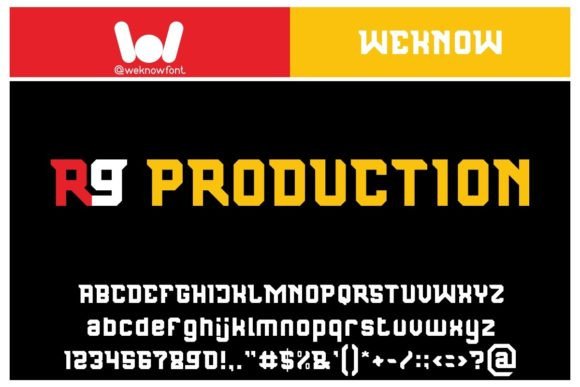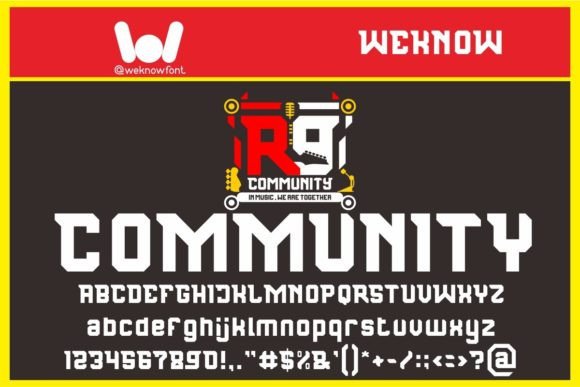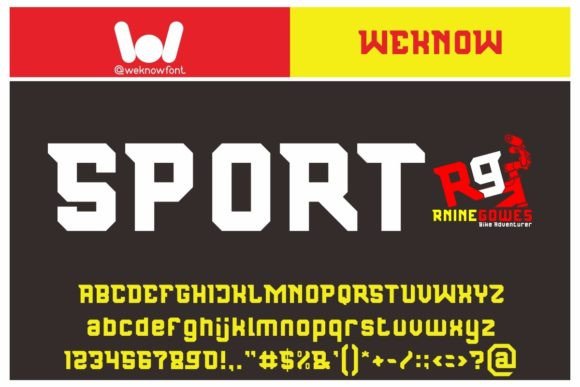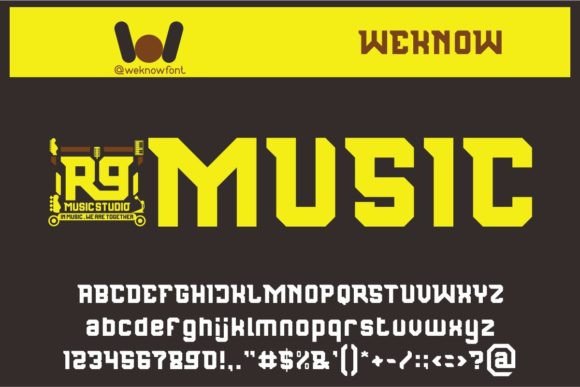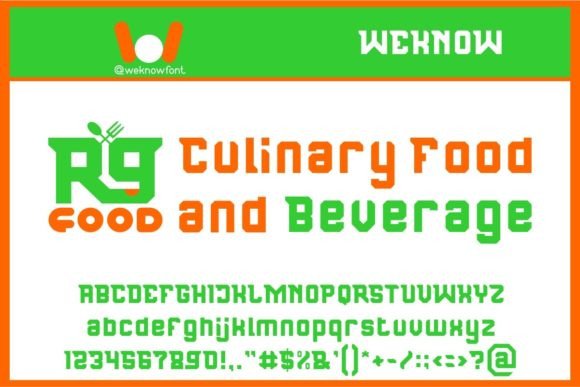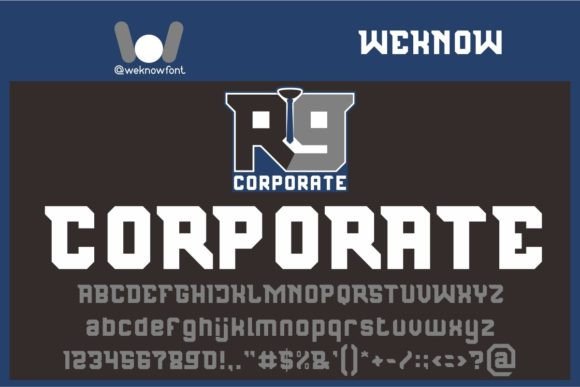
Introduction to Republic Nine Font
As you sit in front of your computer screen, staring at a blank canvas, waiting for inspiration to strike – the cursor blinks, taunting you with its silence. But what if that blank slate could be transformed into a vibrant, high-quality design, ready to take your creative project to the next level? Enter the Republic Nine Font, a modern techno display font that’s about to revolutionize your design game.
This sleek, contemporary font is more than just a pretty face – it’s a valuable resource for designers looking to add a touch of sophistication and style to their work. With its transparent background and free download options, you can easily integrate it into your design workflow, elevating your projects with a professional, high-quality aesthetic that’s sure to impress.
Key Features of Republic Nine Font
- Unique, modern aesthetic with a bold and striking design, making it perfect for adding a touch of sophistication to any creative project.
Honest Review: Republic Nine Font
I recently had the chance to work with the Republic Nine Font, and I must say it’s been a game-changer for my design projects. This font is a fantastic addition to any design resource library.
What I love about the Republic Nine Font is its versatility. It’s perfect for creating unique titles, headings, and even body text. The font’s sleek design makes it ideal for modern and creative projects.
- ✨ High-quality design that stands out from the crowd
However, I did encounter a few limitations while working with the font. The main issue is that it can be a bit challenging to read at smaller font sizes. This is something to consider when using the font for body text.
- ⚠️ Limited readability at smaller font sizes
Overall, I’m impressed with the Republic Nine Font. It’s a great addition to any design library, and I would definitely recommend it to fellow designers. With a little creative thinking, this font can elevate your design projects to the next level.
Tips for Getting the Most Out of Republic Nine Font
Experiment with different font sizes, colors, and styles to achieve the desired effect. Use the font in combination with other design elements, such as images and graphics, to create a visually appealing design. Take advantage of the transparent background feature to add a touch of elegance to your design.
The Republic Nine Font is suitable for a variety of creative projects, including graphic design, typography, and branding. You can use it to create titles, headings, and body text for presentations, documents, and websites. The font is also ideal for creating high-quality graphics and graphics overlays for videos and social media posts.